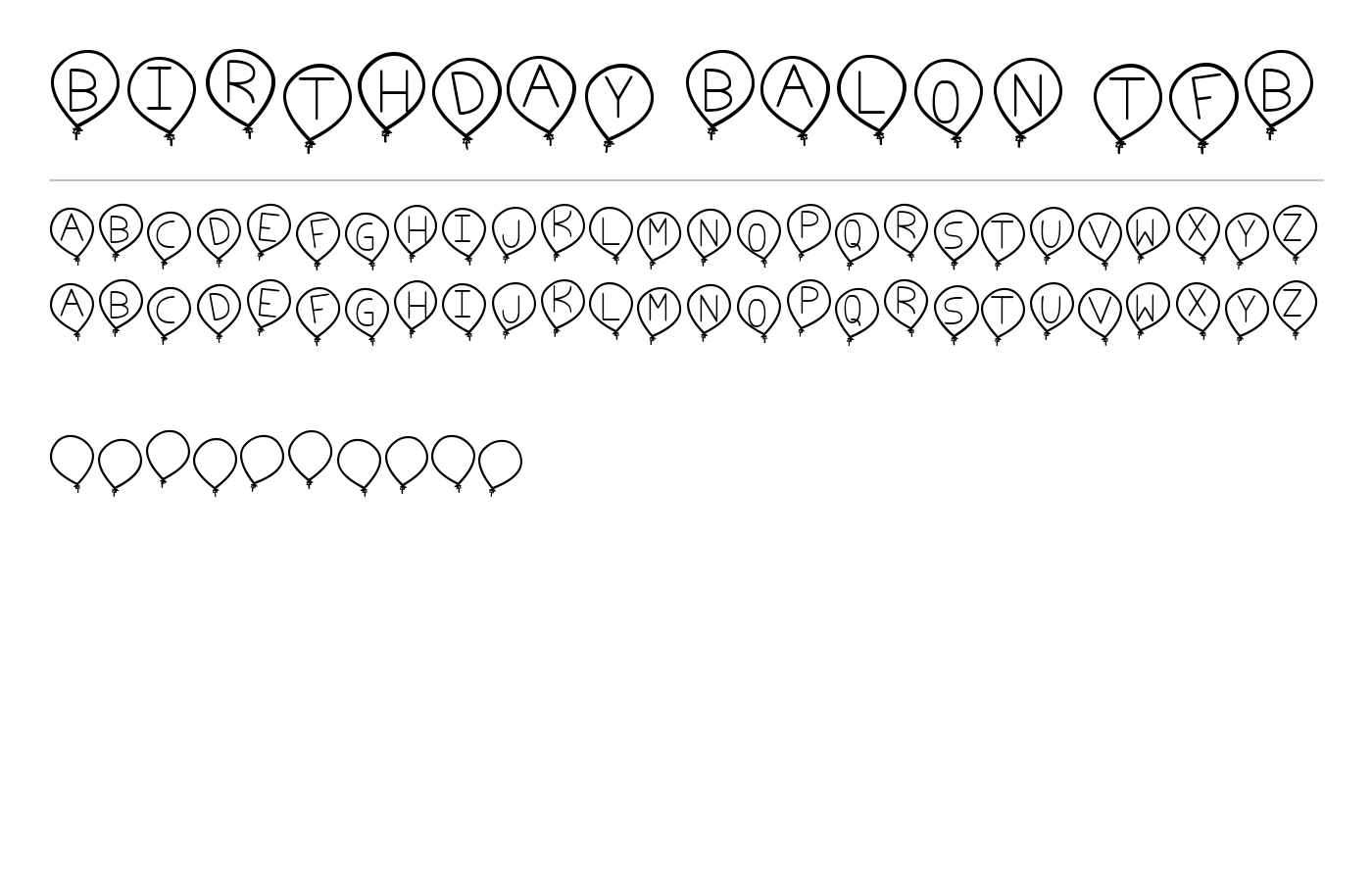
Birthday Balon TFB is a playful and whimsical display font featuring uppercase letters enclosed within balloon-shaped outlines, giving it a festive and lighthearted feel. The thin, hand-drawn strokes and simple geometric shapes make it perfect for party invitations, children’s event materials, and any design seeking a cheerful, celebratory vibe. This font works best in headlines or decorative contexts where fun and creativity are key.
| Font family | birthday balon tfb Font |
| Designer | kaiser zhar khan |